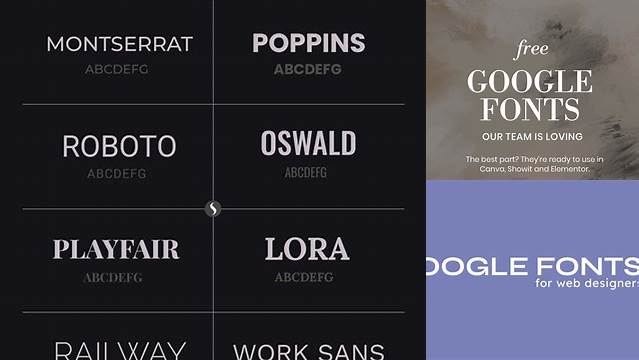
Awesome Free Google Fonts For Graphic Design
Hey there, fellow design enthusiasts! Ever feel like you're on a quest for the perfect font? One that not only looks amazing but also won't break the bank? Well, you're in luck! Today, we're diving headfirst into the wonderful world of best free Google Fonts for graphic design. These fonts are like the superheroes of the design world, offering a vast array of styles, from sleek and modern to whimsical and vintage, all available at the magical price of free!
So, grab your favorite beverage, settle in, and let's explore some fantastic options that will elevate your designs and make your projects pop. We'll cover everything from the best fonts for headlines to those perfect for body text, ensuring you have the tools to create stunning visuals without spending a dime. Let's get started, shall we?
1. Understanding the Power of Google Fonts in Graphic Design
Okay, guys, before we jump into the font specifics, let's talk about why Google Fonts is such a game-changer for graphic designers. Best free Google Fonts for graphic design offers a massive library of fonts, all readily available for use in your projects. The beauty of Google Fonts lies in its accessibility and versatility. Whether you're designing a website, a logo, a brochure, or social media graphics, you'll find fonts that fit your style. The platform is incredibly user-friendly, allowing you to browse, preview, and download fonts with ease. This means that you have access to a wide range of typefaces to enhance the visual appeal of your projects. Moreover, the fonts are optimized for web use, ensuring they load quickly and look great across various devices. This makes Google Fonts an indispensable resource for designers who want to create visually appealing and accessible content. It's a treasure trove of design possibilities, all at your fingertips.
1.1. Why Free Fonts Matter in Graphic Design
Alright, let's talk about why free fonts are a big deal. Best free Google Fonts for graphic design democratizes design by giving everyone access to quality typography. This eliminates the financial barrier often associated with premium fonts, making it easier for small businesses, freelancers, and hobbyists to create professional-looking designs. The fact that these fonts are free doesn't mean they're low quality. Many Google Fonts are designed by talented typographers and are just as good as (or sometimes even better than) paid fonts. They're designed with the user in mind and are built to work seamlessly across different platforms.
Accessibility is another key benefit. Google Fonts is a cloud-based service, meaning you can easily access and use fonts on any device with an internet connection. This is incredibly convenient for designers who work on multiple projects or collaborate with others. This streamlined process simplifies the design workflow. Additionally, free fonts open up opportunities for experimentation. You're not limited to the fonts you've already purchased, you can explore a wide variety of styles and find the perfect match for your project. This allows you to evolve your style and discover your unique design voice. This freedom to experiment is crucial for growth and innovation in graphic design.
1.2. Finding the Right Font for Your Design Project
Choosing the right font is more than just picking something that looks pretty; it's about conveying the right message and creating a cohesive brand identity. Best free Google Fonts for graphic design offers an array of options. Begin by considering your project's purpose and target audience. Is it for a website, a logo, or a print advertisement? Who are you trying to reach? A playful children's book calls for a different font than a corporate report. Understanding your audience's preferences and expectations is key to making an informed choice. This step helps to build a strong foundation for your design.
Next, delve into the different font categories. Serif fonts, like the classic Times New Roman or the elegant Playfair Display, are often used for body text due to their readability. Sans-serif fonts, such as the modern Open Sans or the versatile Lato, are great for headlines and digital displays because they are clear and easy to read. Display fonts, such as Lobster or Pacifico, are best suited for headlines and decorative purposes, offering unique stylistic flair. Experiment with different font combinations to find the right balance. Using multiple fonts can add visual interest but avoid using too many fonts, as it can clutter your design. Remember to consider the font's weight, size, and spacing for optimum readability and impact.
2. Top Google Fonts for Headlines & Titles
Alright, let's get to the good stuff! Here's a rundown of some top Google Fonts that will make your headlines and titles shine. Best free Google Fonts for graphic design contains fonts that make heads turn. These fonts are perfect for grabbing attention and creating a strong visual impact. From bold and modern to elegant and refined, these fonts will elevate your headlines and titles to a whole new level.
These headlines fonts will instantly grab the attention of your audience. Some of the best headline fonts include the bold and impactful Bebas Neue, the clean and modern Montserrat, and the stylish Raleway. These fonts are perfect for making your headlines pop and ensuring they capture the reader's attention. They work well for digital and print projects. Other fonts like Oswald and Anton provide a strong, condensed look, ideal for concise headlines. The versatility of these fonts ensures that you can find the perfect match for your project's unique requirements. These fonts create a sense of professionalism and impact.
2.1. The Bold and Beautiful: Fonts That Demand Attention
Sometimes you need a headline that simply screams